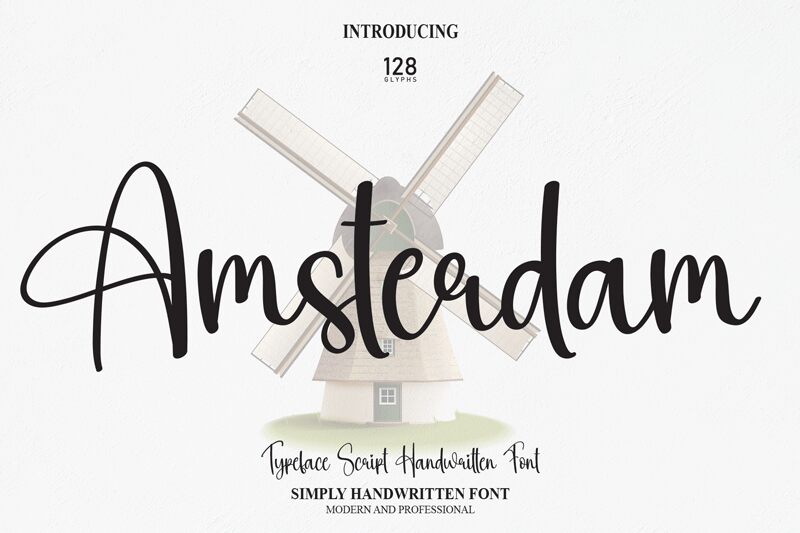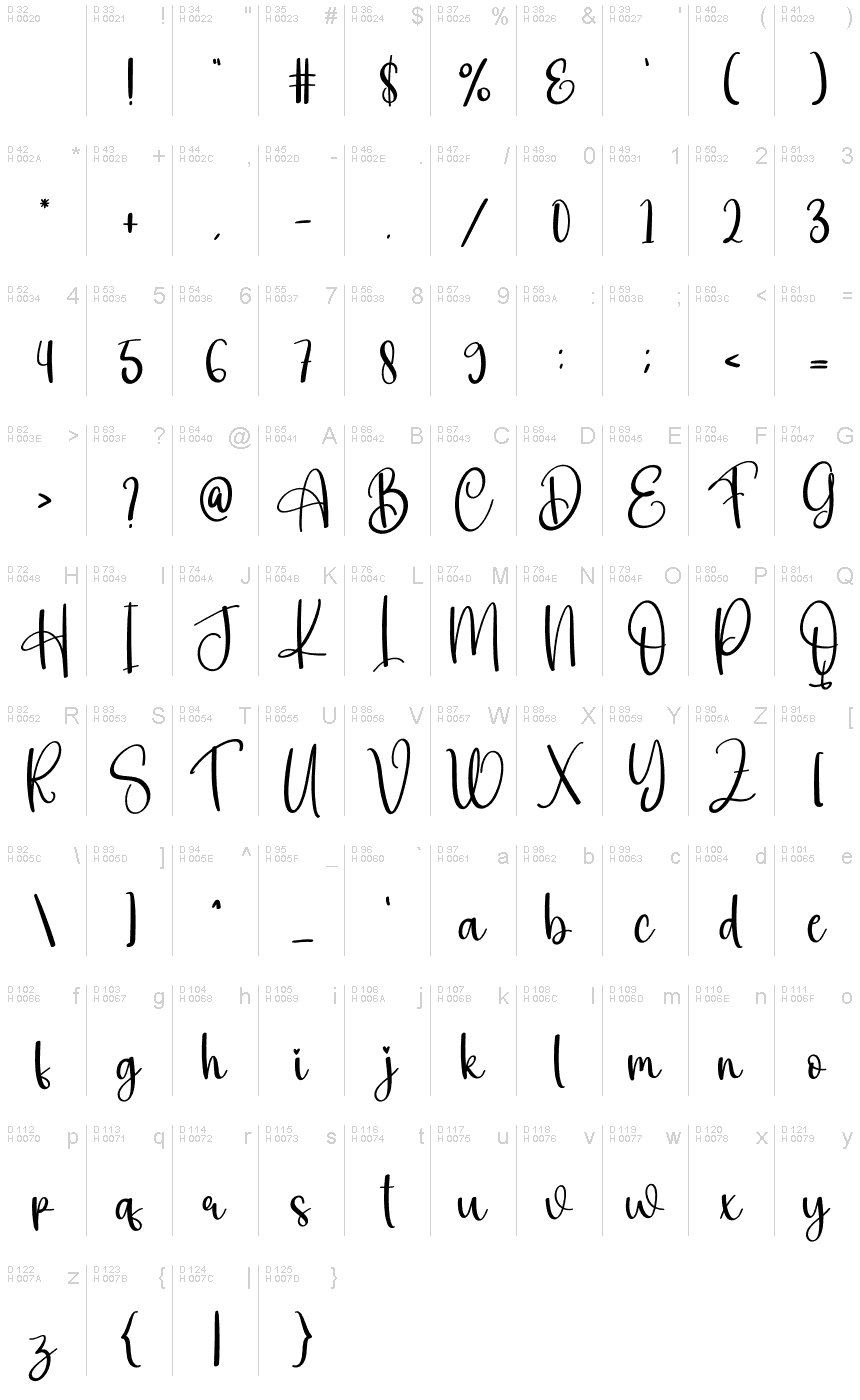
Amsterdam
Amsterdam, a captivating handwritten font by scratchones, adds a touch of elegance to any project. Its semi-light weight exhibits a perfect balance between subtlety and legibility. This versatile typeface is perfect for creating eye-catching logos, invitations, and stationery. With its unique charm and graceful strokes, Amsterdam enhances wedding materials with romantic flair. It also lends itself beautifully to blog headers and social media graphics, infusing every post with an artistic touch. Let this enchanting font weave its magic across menus, packaging designs, and book covers as it effortlessly captivates the hearts of readers.
The latest style letters are perfect for wall displays, wedding invitations, social media post logos, advertisements, product packaging, product designs, labels, photography, watermarks, invitations, stationery, and any project that requires taste handwriting.